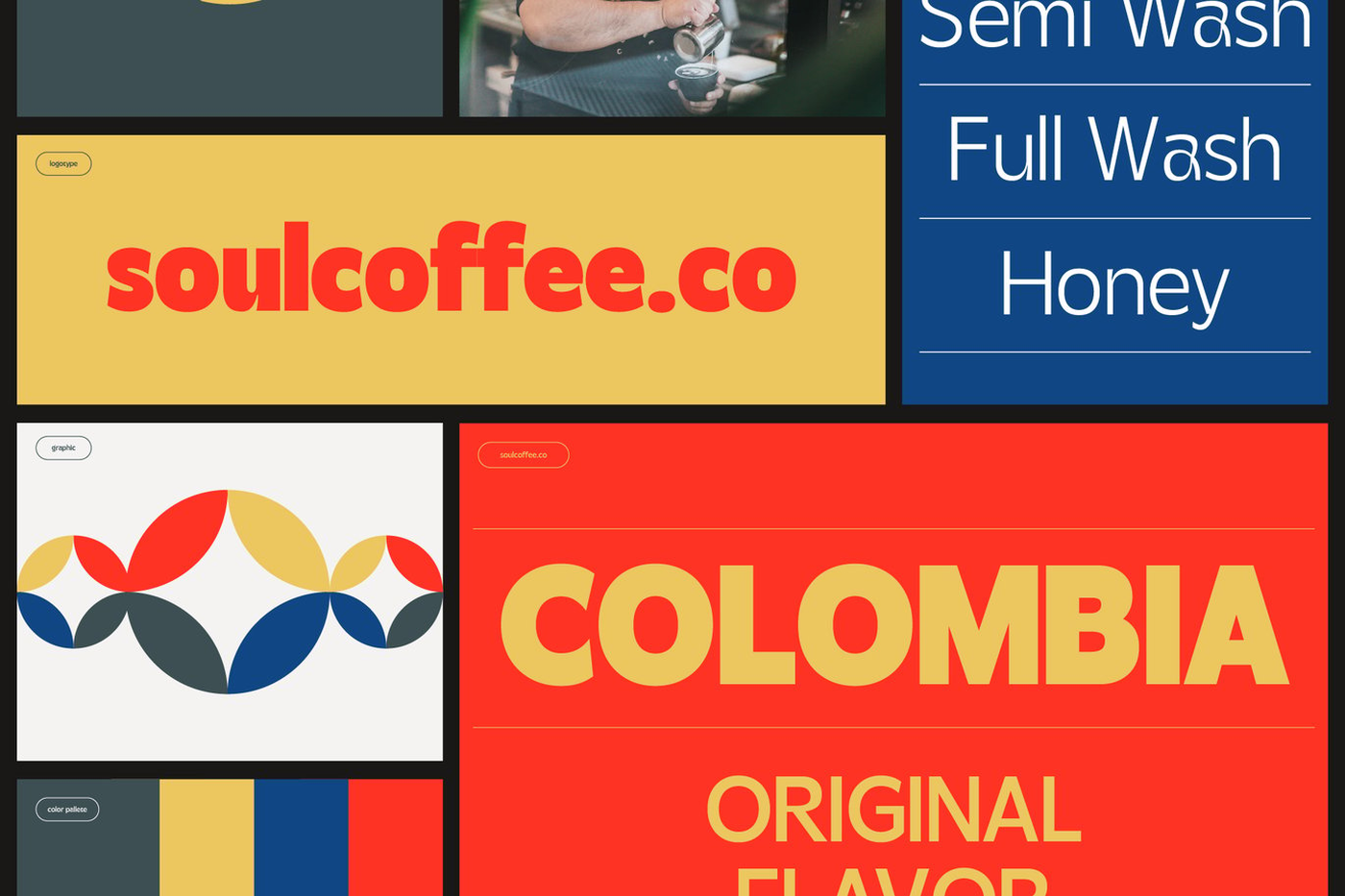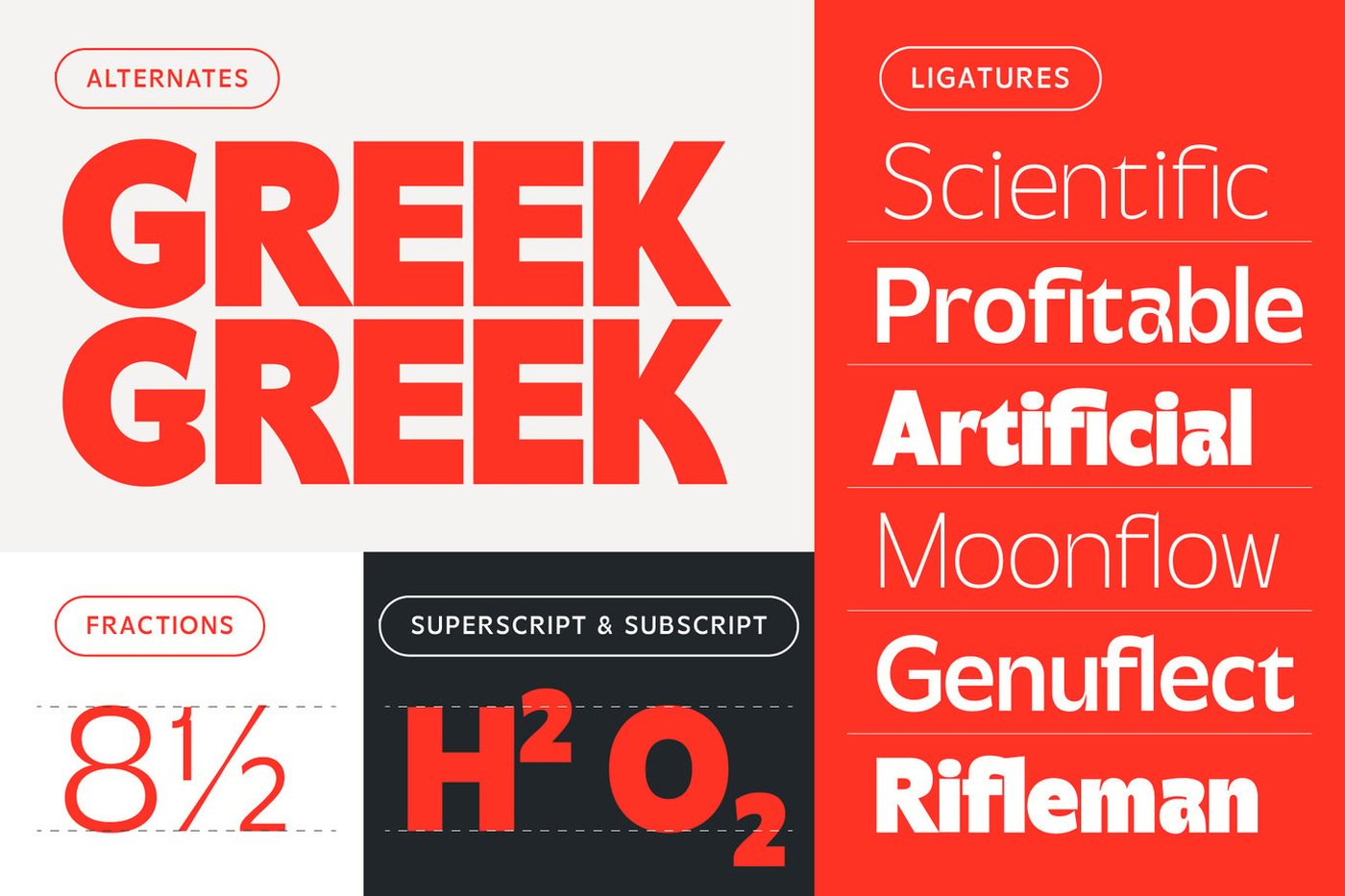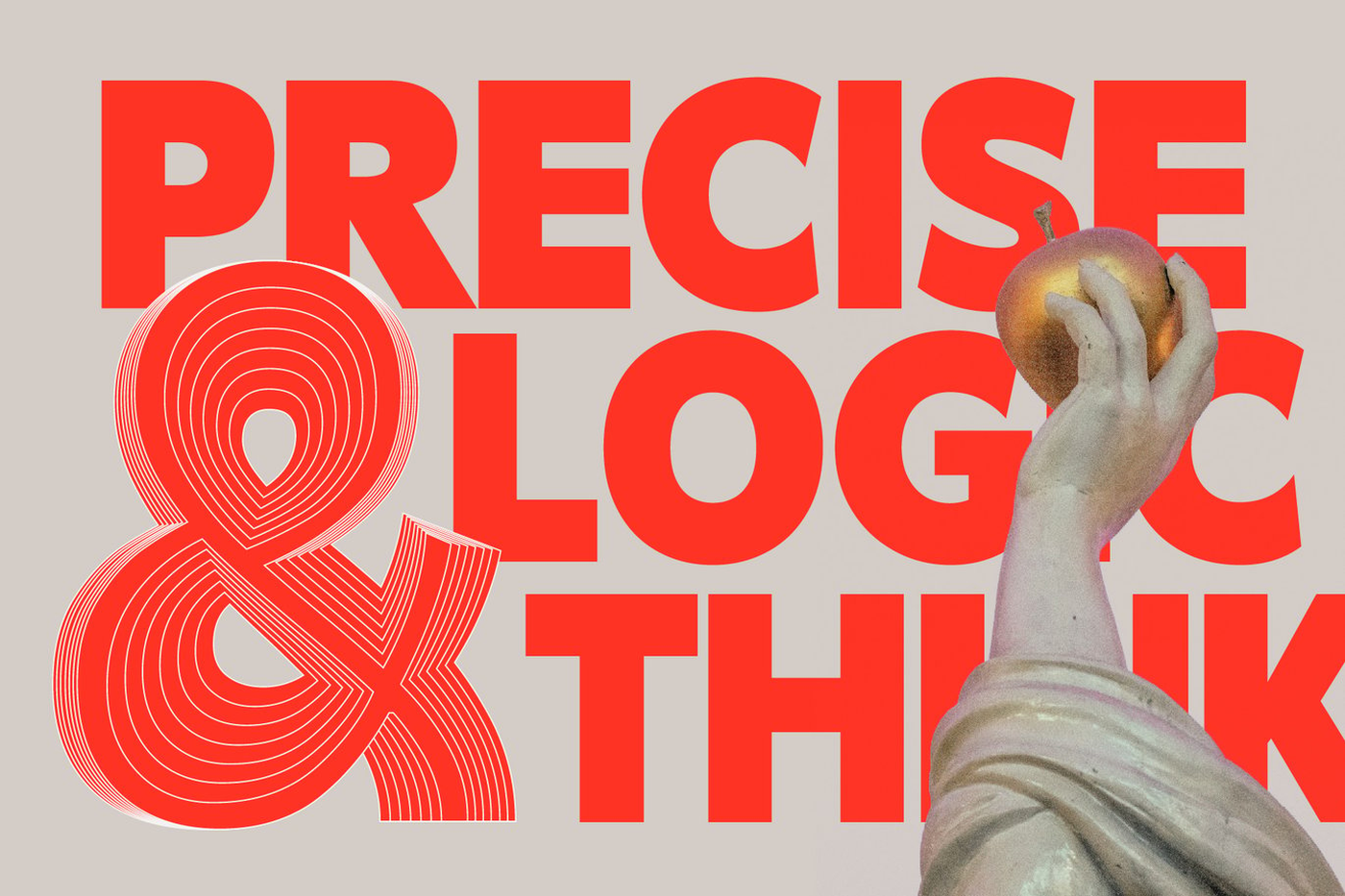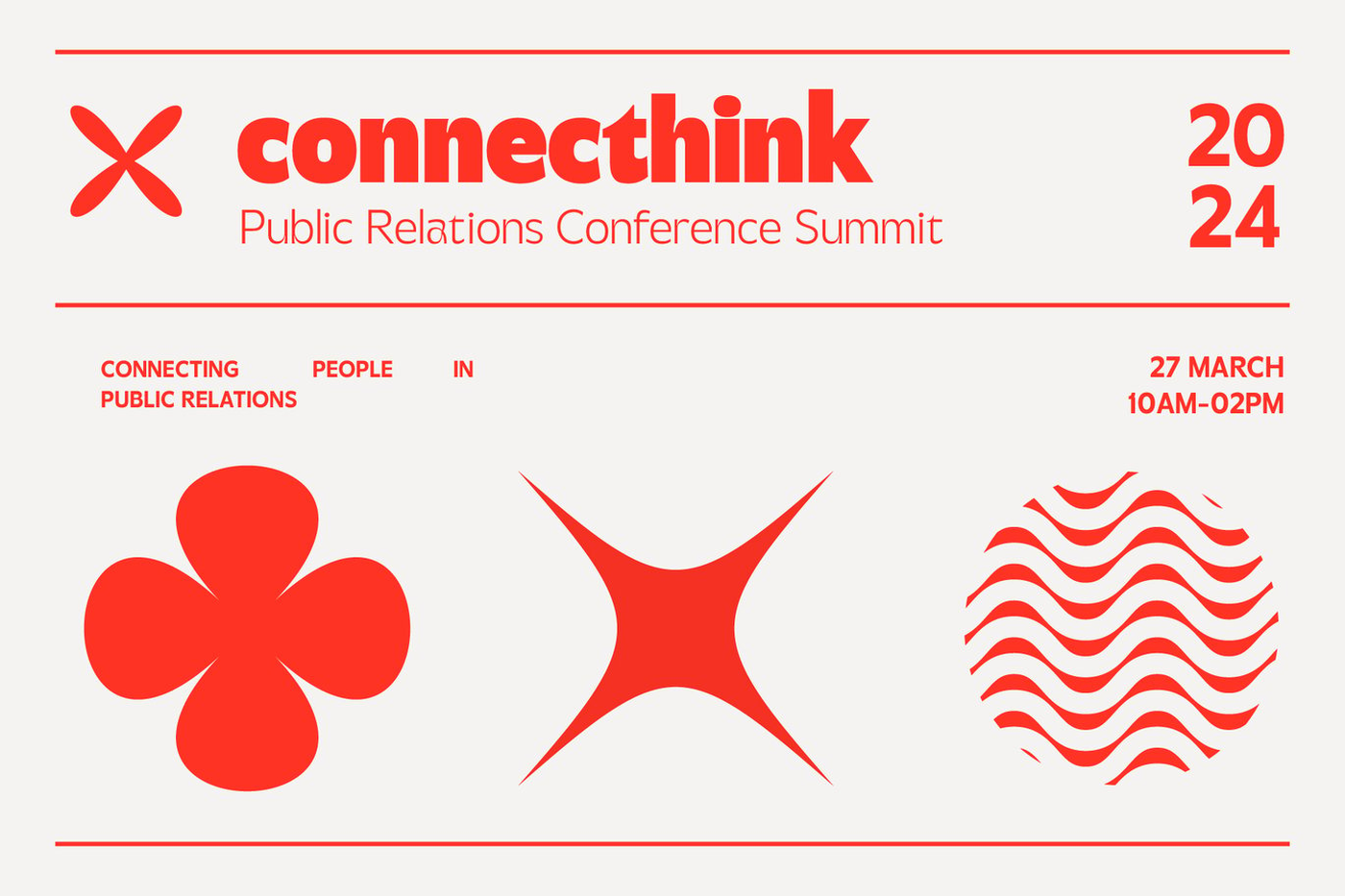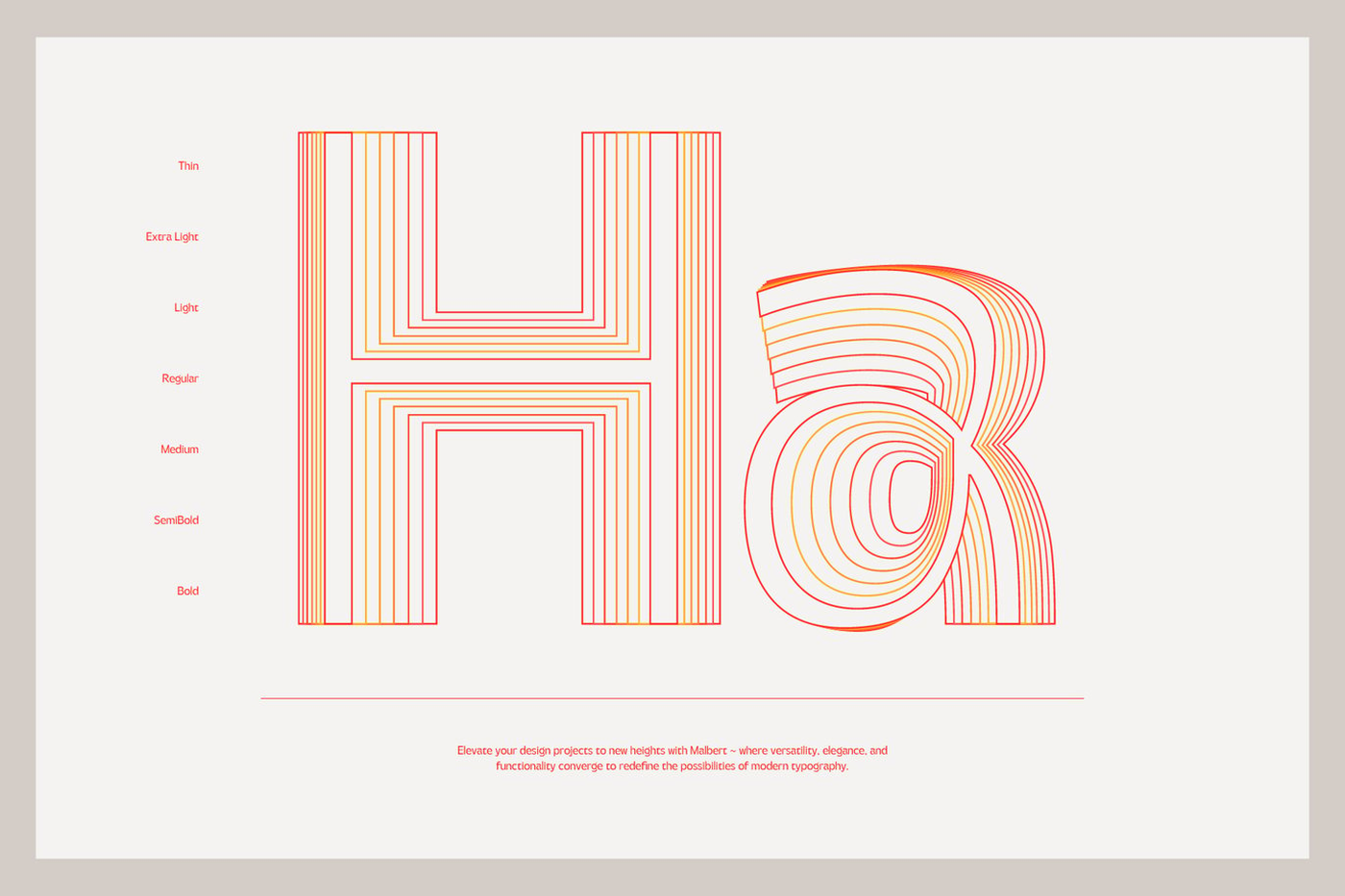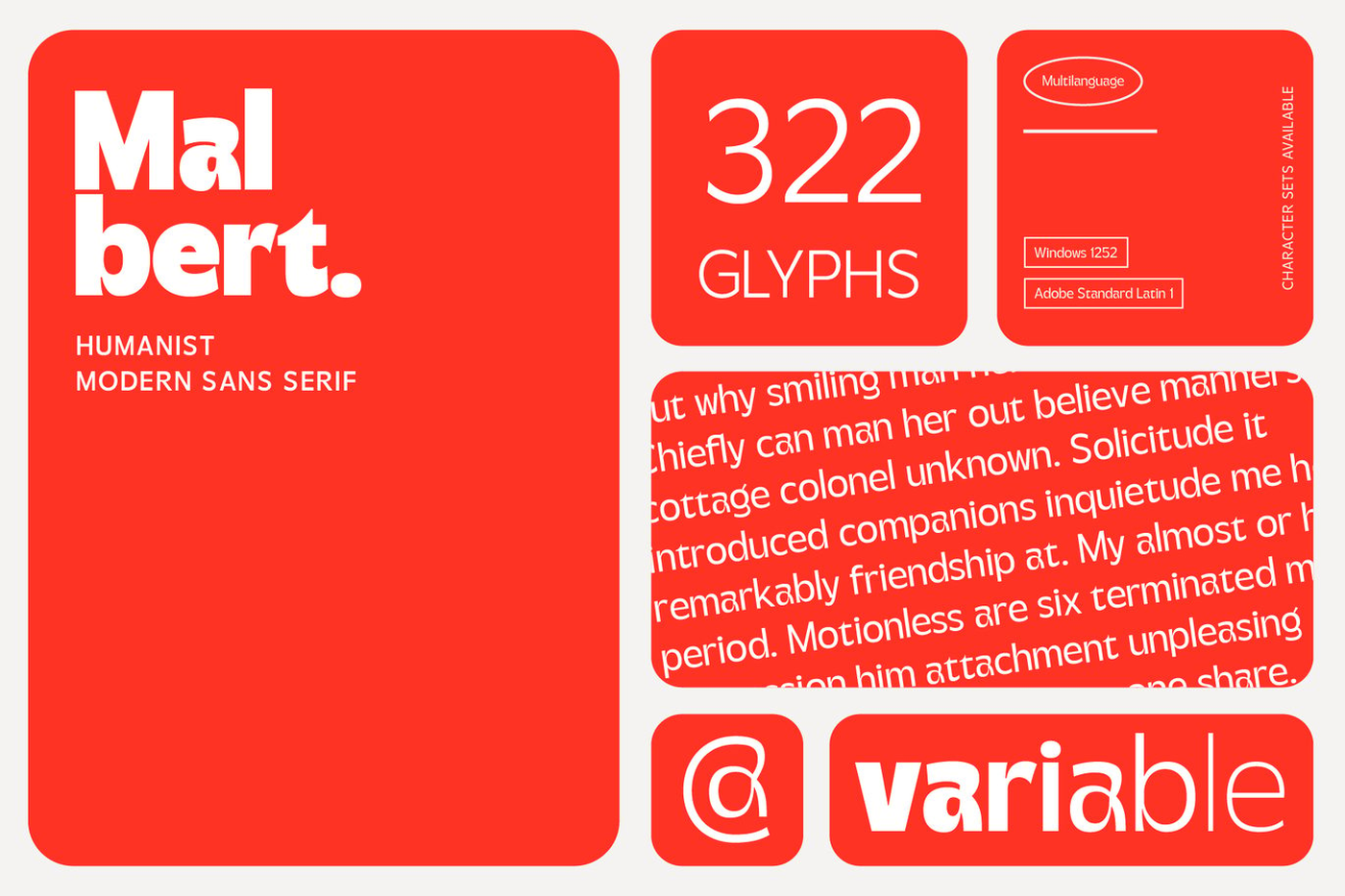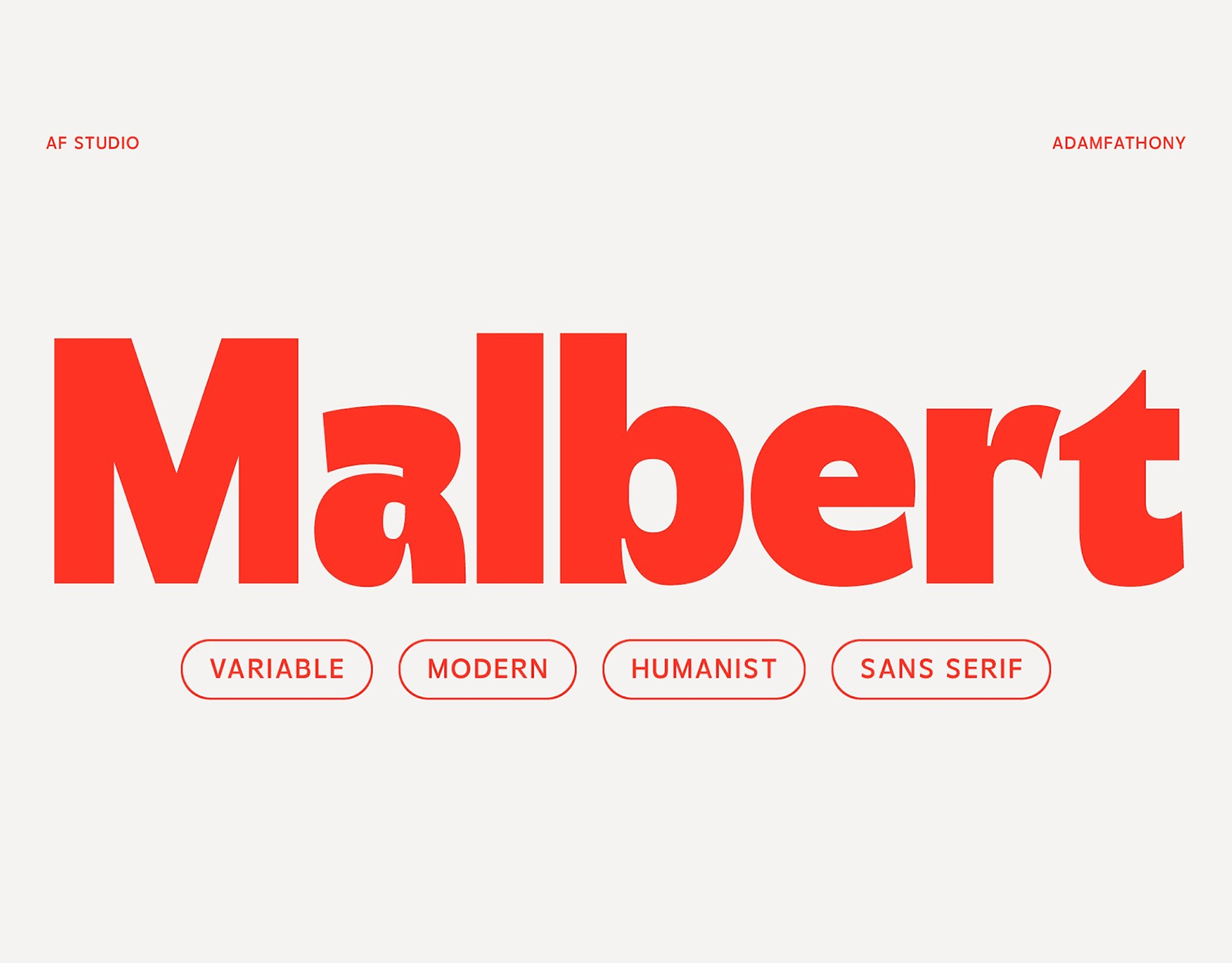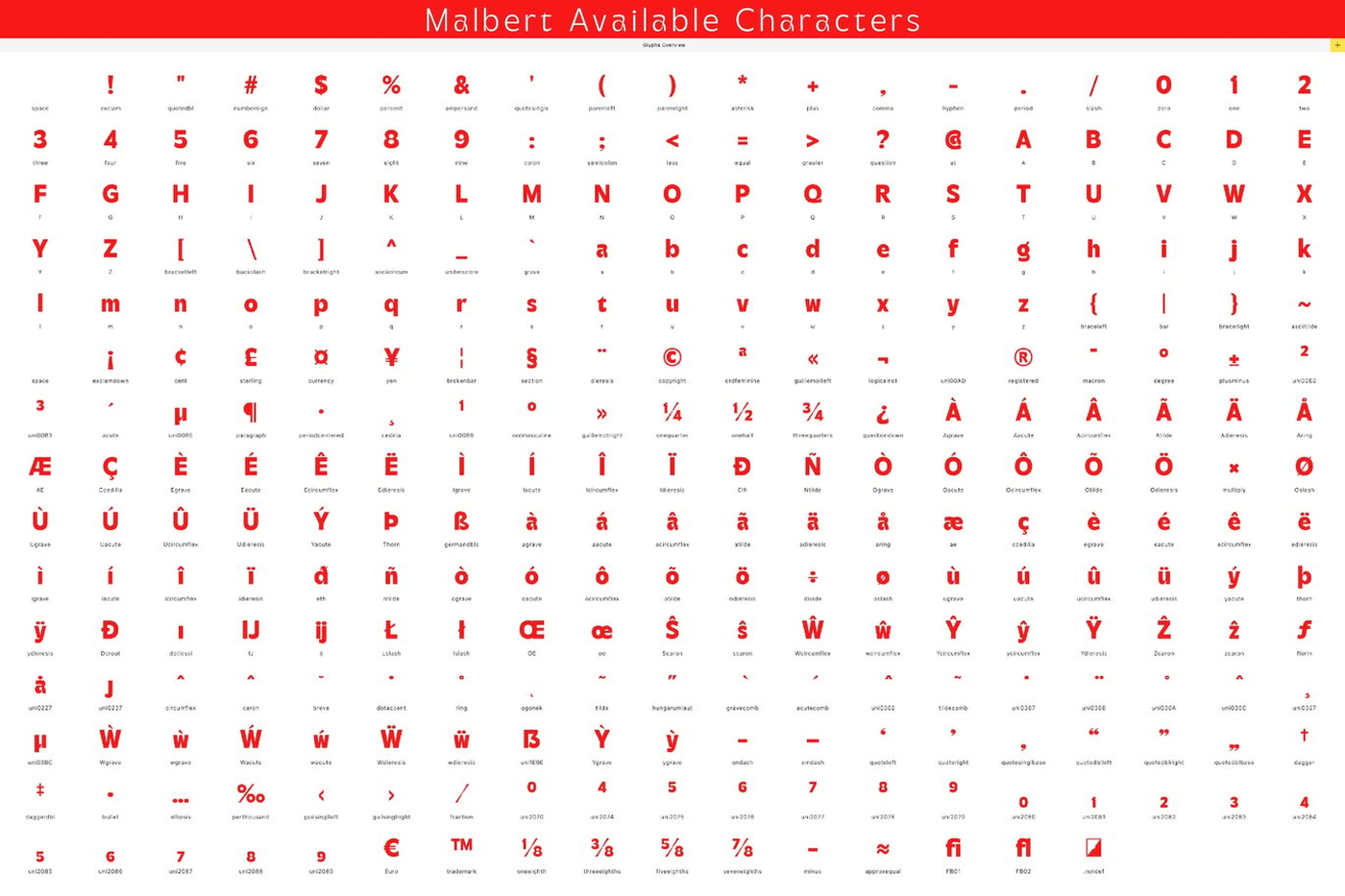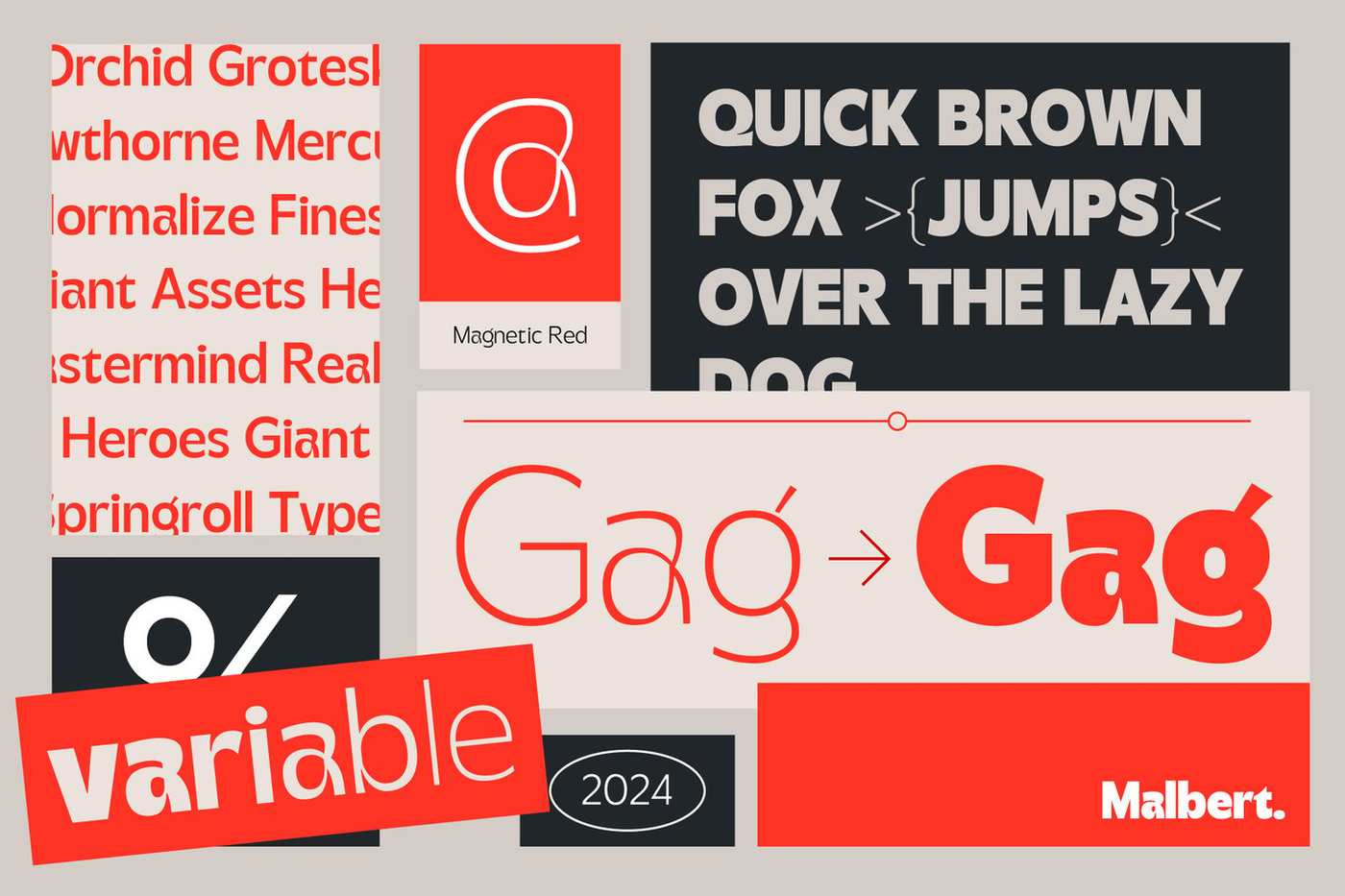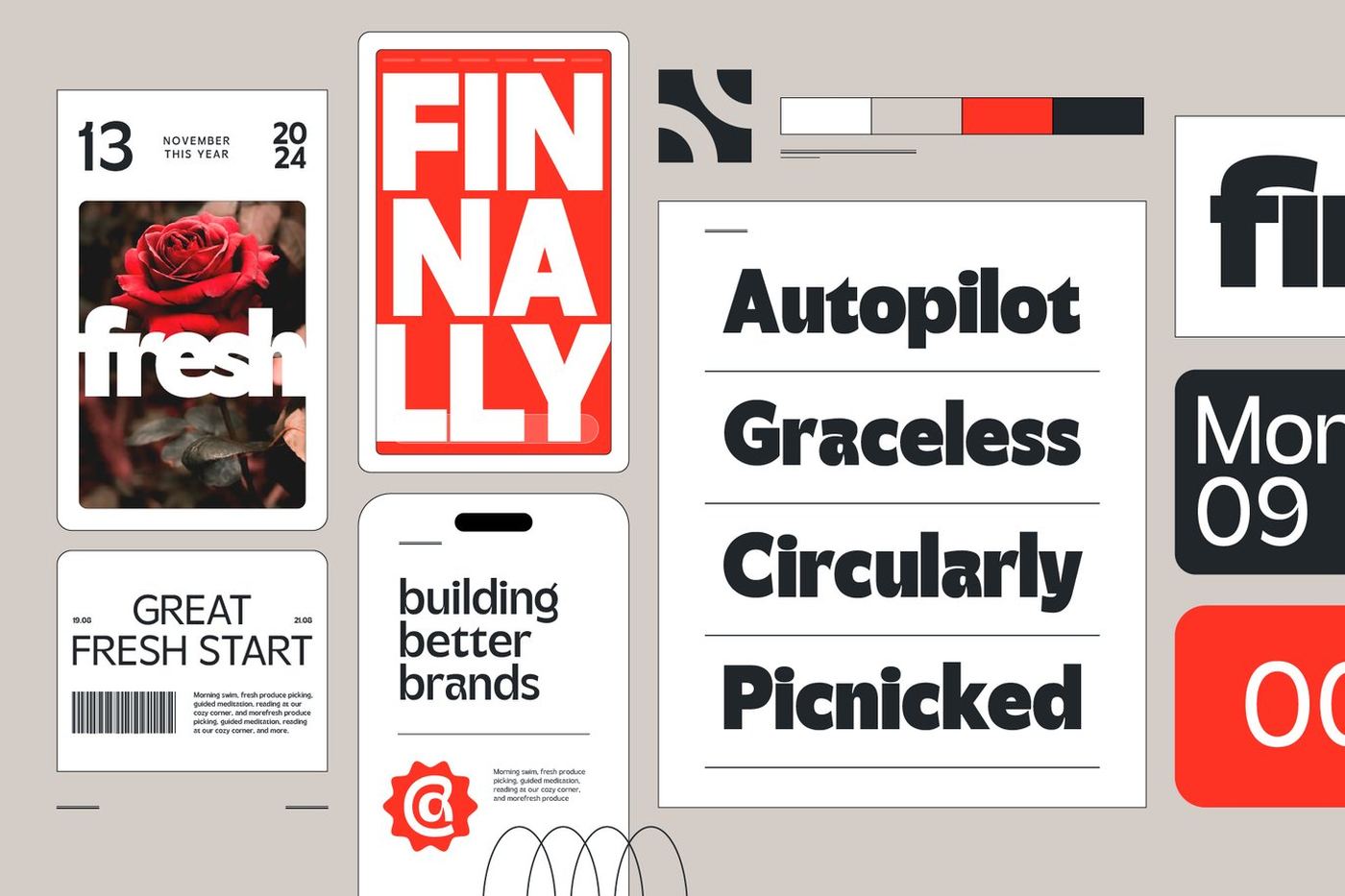
Malbert - Humanist Sans Serif Font
Malbert is a dynamic variable font designed to elevate your typographic creations with its sleek, modern, and humanist-inspired aesthetic. With seven meticulously crafted weights ranging from the delicate Thin to the commanding Bold, Malbert offers unparalleled versatility to suit any design project. Embodying the essence of contemporary elegance, Malbert strikes the perfect balance between sophistication and accessibility. Its sans-serif design exudes a sense of clarity and modernity, making it ideal for a wide range of applications, from editorial design to digital interfaces.